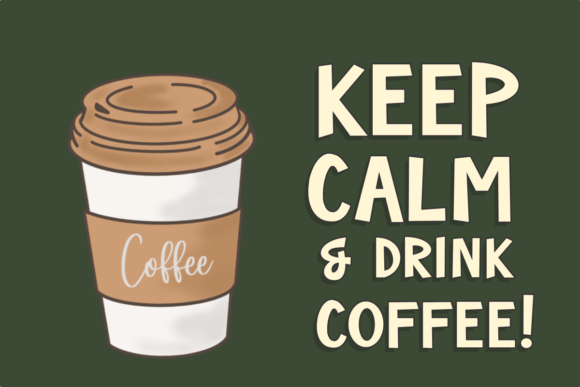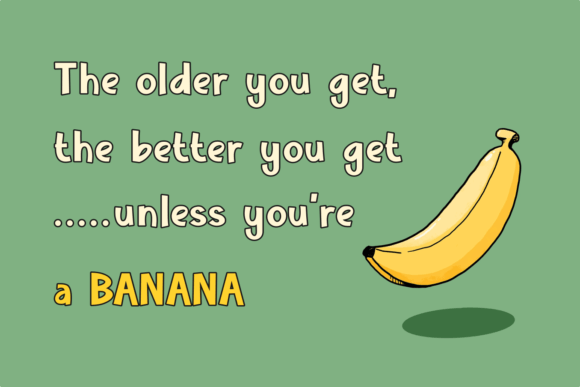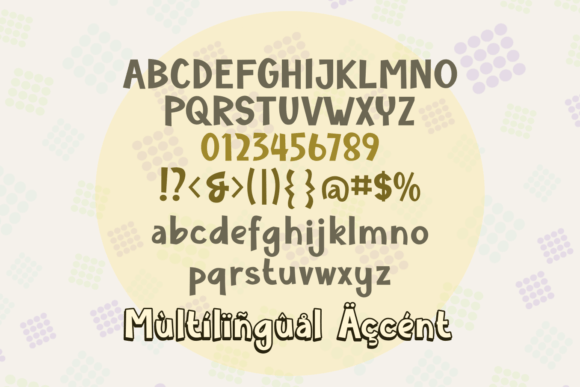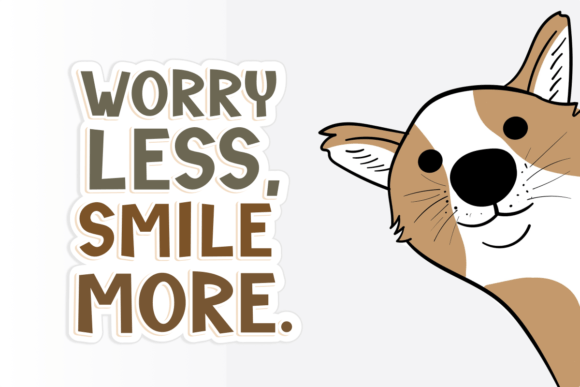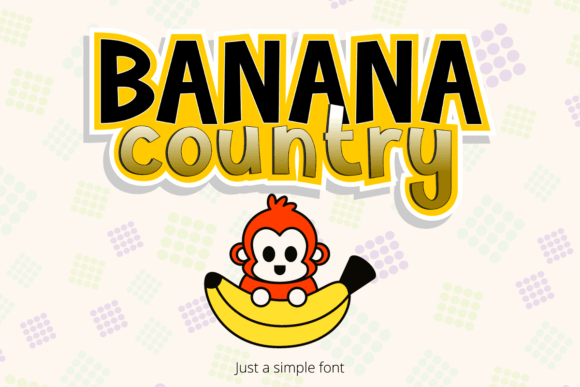
Introducing Banana Country Font: The Perfect Addition to Your Design Toolbox
Are you tired of using the same old fonts in your designs? Look no further than Banana Country Font, a simple, fun, and friendly display font that’s sure to add a touch of whimsy to your creations. Whether you’re working on cartoon-related designs, quotes, or just any project that requires a lovely touch, Banana Country Font is an amazing choice.
What Makes Banana Country Font So Special?
Banana Country Font is a unique and eye-catching font that’s perfect for designers and crafters who want to add a bit of personality to their work. Here are just a few reasons why Banana Country Font stands out from the crowd:
- Simple yet playful: Banana Country Font has a simple, clean design that’s both easy to read and fun to look at. The font’s playful vibe makes it perfect for designs that require a lighthearted touch.
- Friendly and approachable: The font’s friendly and approachable feel makes it perfect for designs that need to convey a sense of warmth and approachability.
- Versatile: Banana Country Font is a versatile font that can be used in a wide range of designs, from cartoon-related projects to quotes, posters, and more.
Uses for Banana Country Font
Banana Country Font is a versatile font that can be used in a wide range of designs. Here are just a few ideas to get you started:
- Cartoon-related designs: Banana Country Font is perfect for cartoon-related designs, such as character designs, comics, and animated films.
- Quotes and posters: The font’s playful and friendly vibe makes it perfect for quotes and posters that need to convey a sense of inspiration and motivation.
- Crafting and DIY projects: Banana Country Font is a great choice for crafting and DIY projects, such as handmade cards, gift tags, and other paper crafts.
- Branding and marketing: The font’s unique and eye-catching design makes it perfect for branding and marketing projects, such as logos, business cards, and brochures.
Tips for Using Banana Country Font
Here are a few tips for using Banana Country Font in your designs:
- Use it sparingly: Banana Country Font is a bold and eye-catching font, so use it sparingly to avoid overwhelming your design.
- Pair it with other fonts: Banana Country Font pairs well with other fonts, such as sans-serif fonts and script fonts. Experiment with different font combinations to find the perfect look for your design.
- Experiment with colors: Banana Country Font looks great in a wide range of colors, from bright and bold to pastel and soft. Experiment with different colors to find the perfect look for your design.
Banana Country Font is a simple, fun, and friendly display font that’s perfect for designers and crafters who want to add a bit of personality to their work. With its playful and approachable vibe, Banana Country Font is a versatile font that can be used in a wide range of designs, from cartoon-related projects to quotes, posters, and more. So why not give Banana Country Font a try and see how it can add a touch of whimsy to your designs?